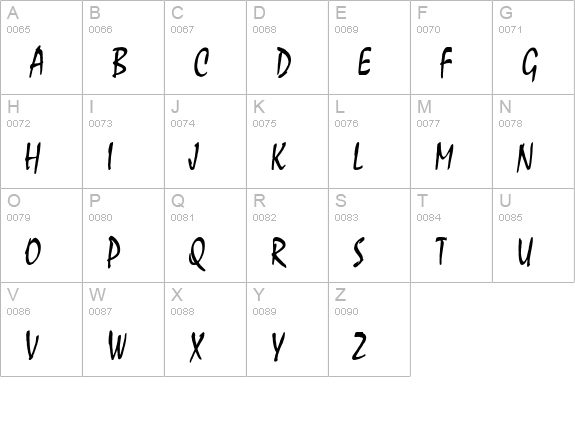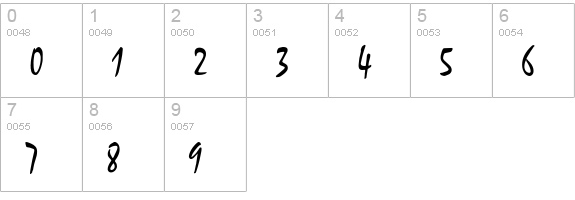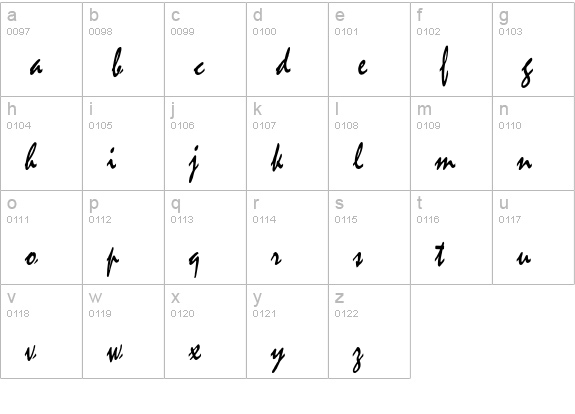
Mystic Thin Normal is a delicate, low-contrast variant in the Mystic typeface family \xE2\x80\x94 well suited to fashion editorial, minimal branding, and high-contrast display.
Mystic Thin Normal font is a sleek and elegant typeface that exudes a sense of mystery and sophistication. With its delicate lines and stylish curves, this font is perfect for adding a touch of mystique to any project. Whether you're designing a logo, creating a poster, or crafting a stylish invitation, Mystic Thin Normal font will elevate your work to new heights. The best part? Mystic Thin Normal font is completely free to download at FontsMarket.com. Simply visit the website and grab this exquisite font to enhance your designs with a touch of magic. Don't miss out on this opportunity to add a hint of mystery and charm to your projects with Mystic Thin Normal font - download it today for free!